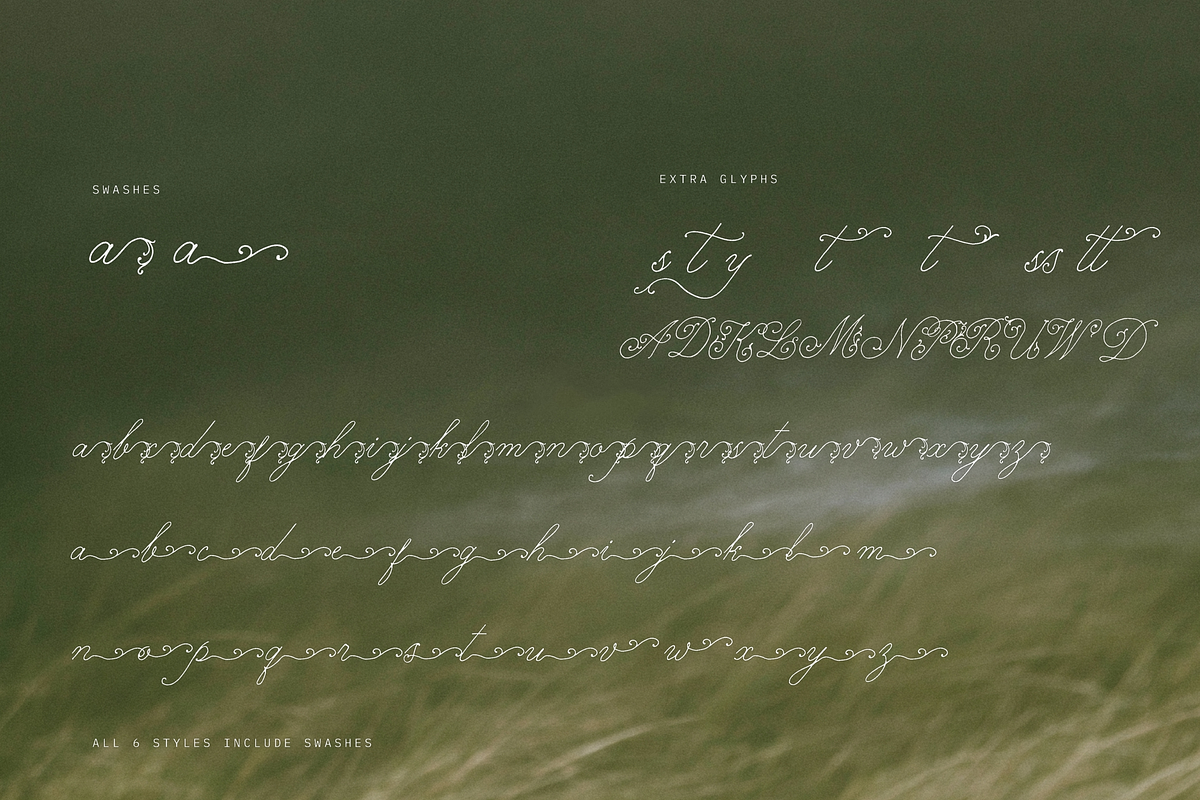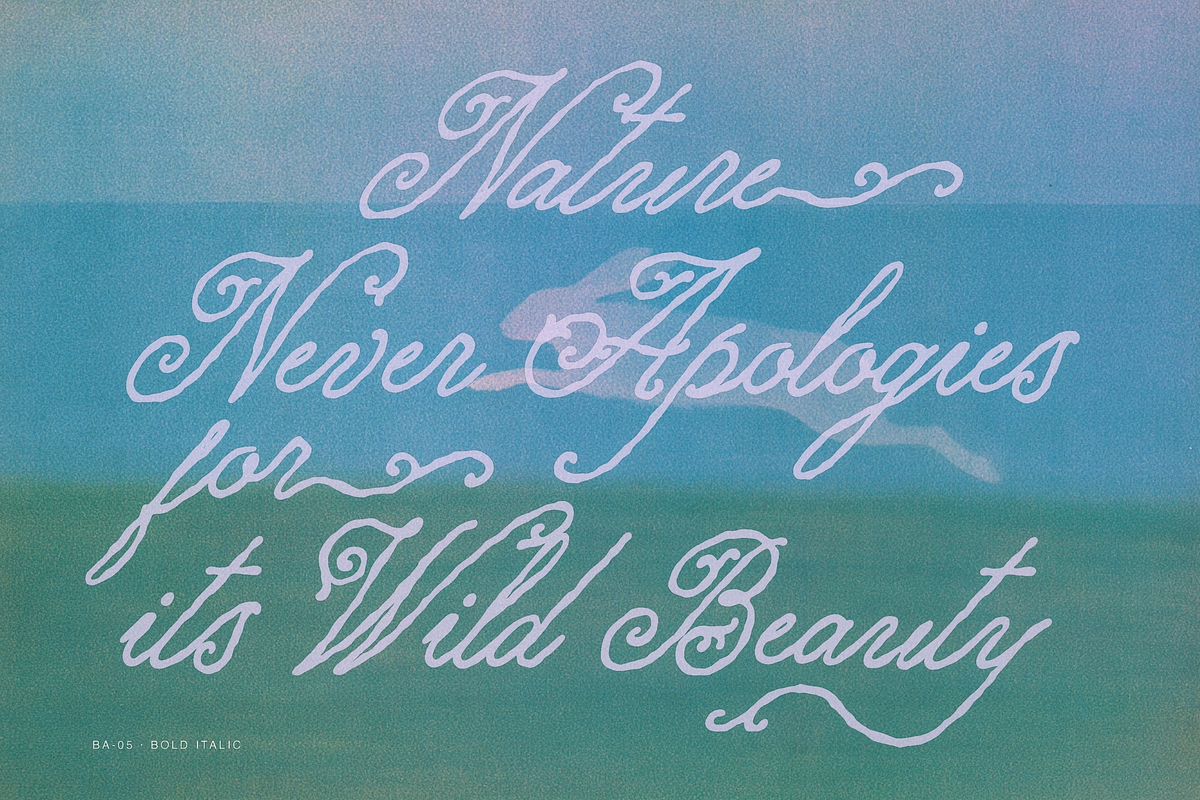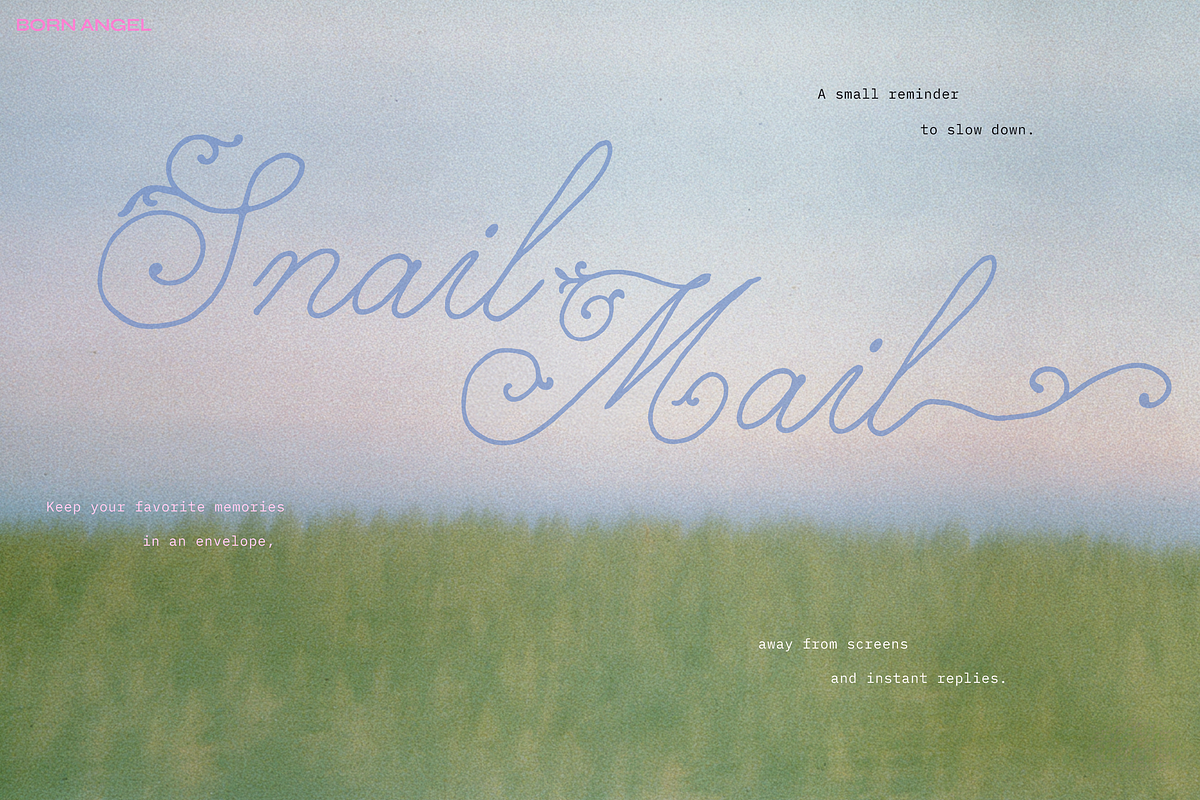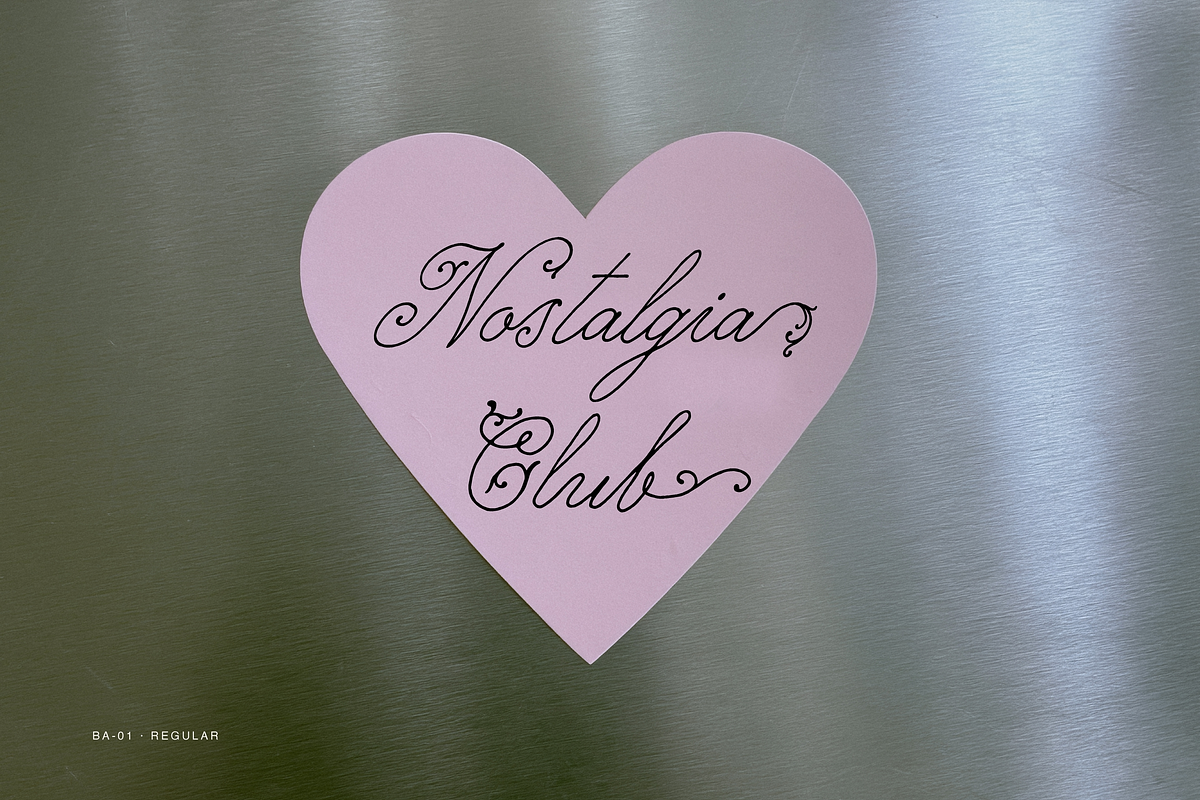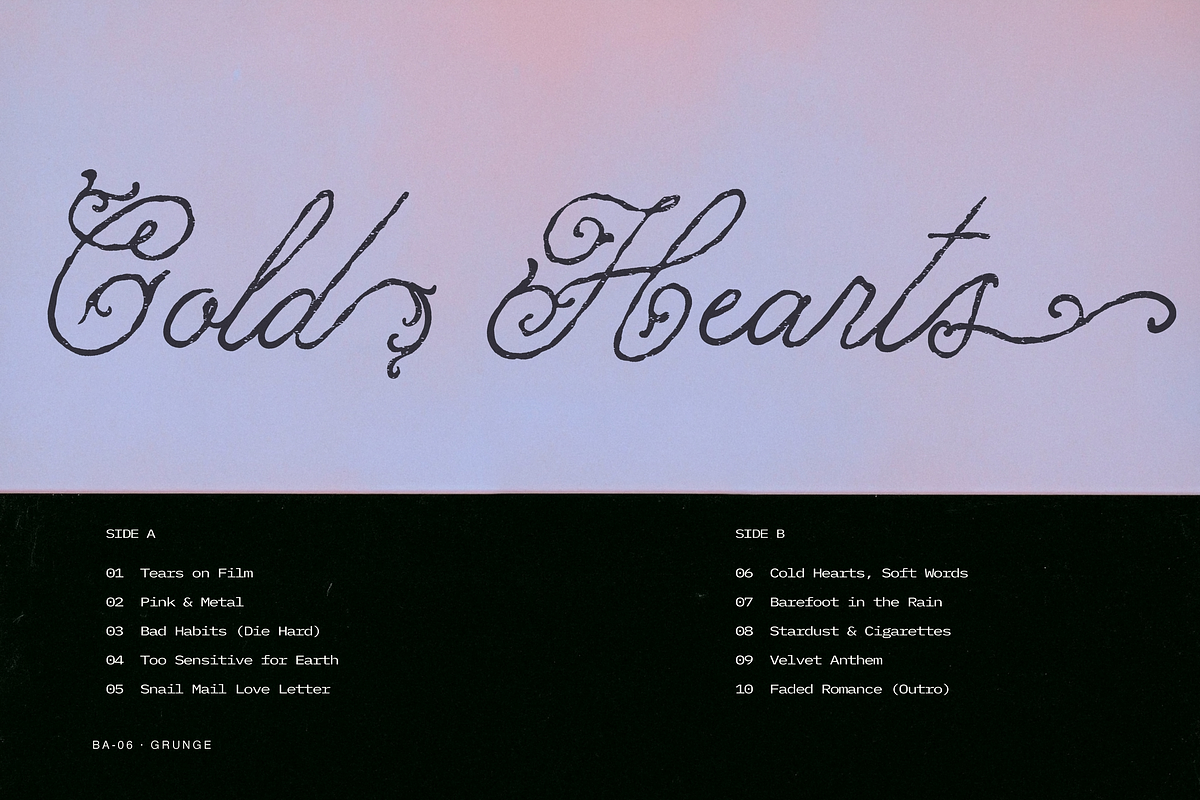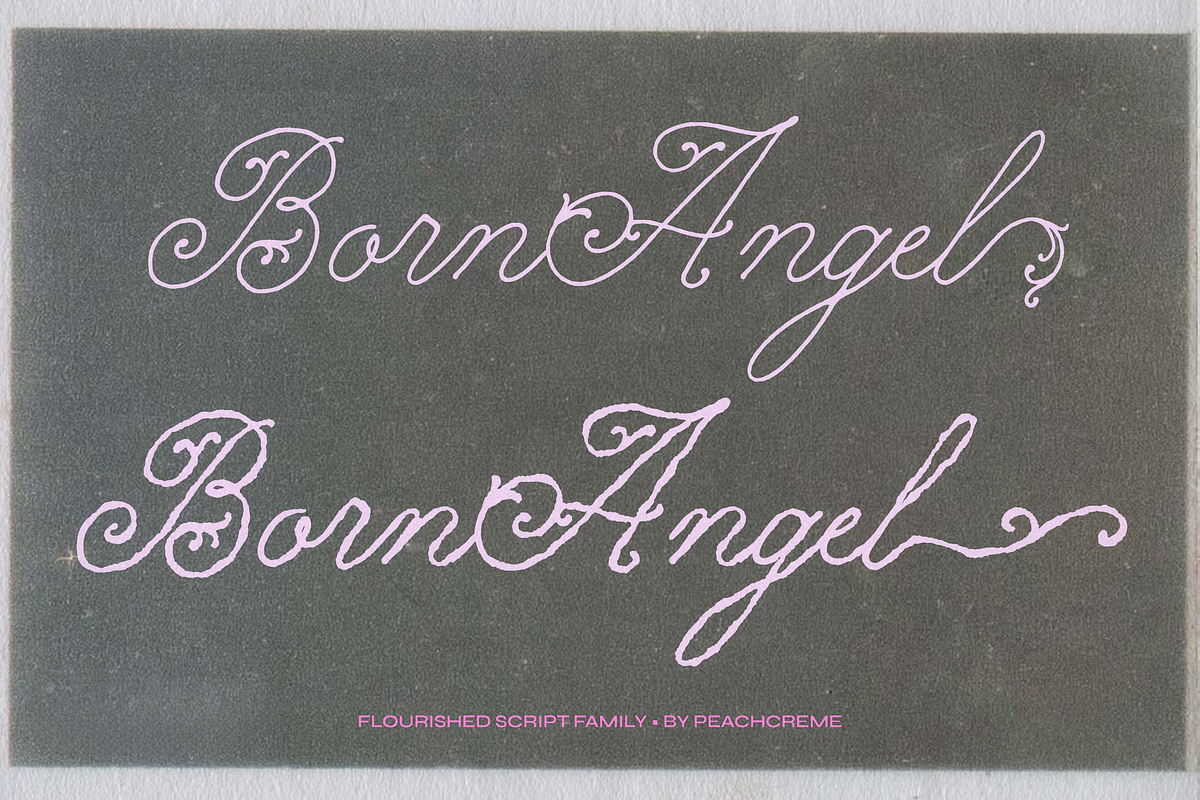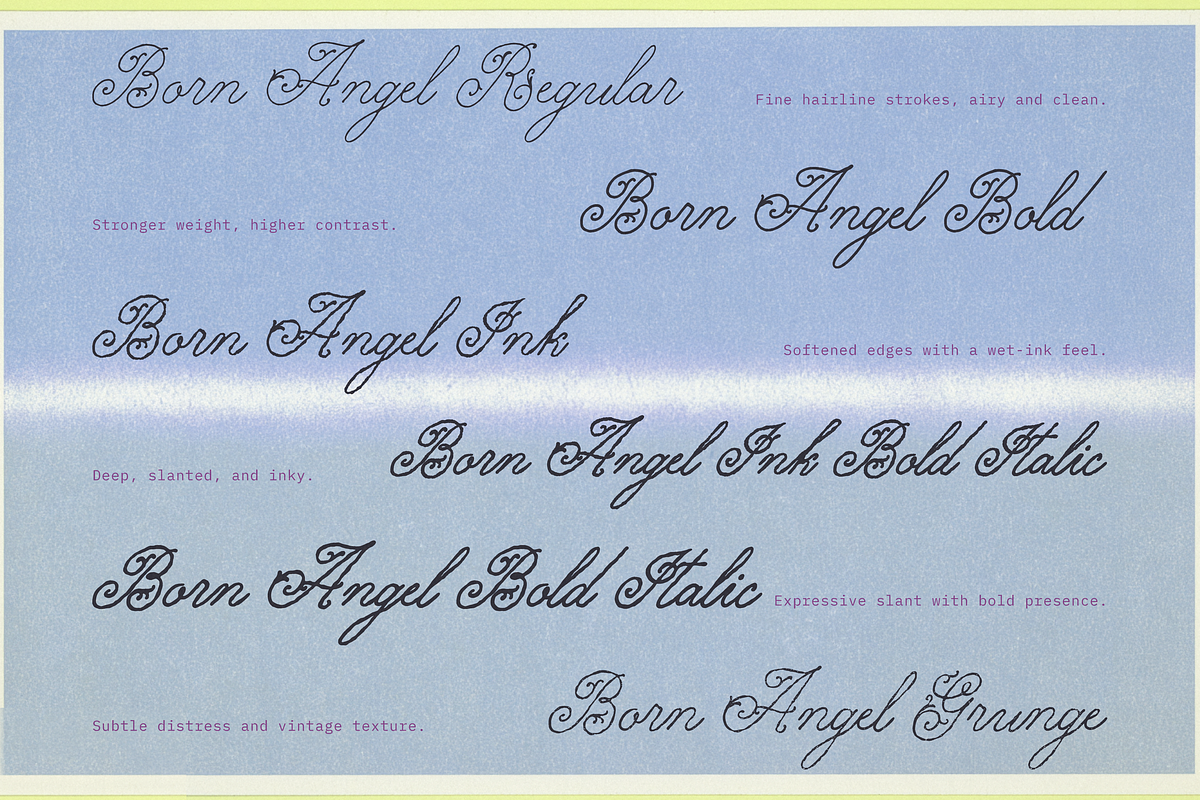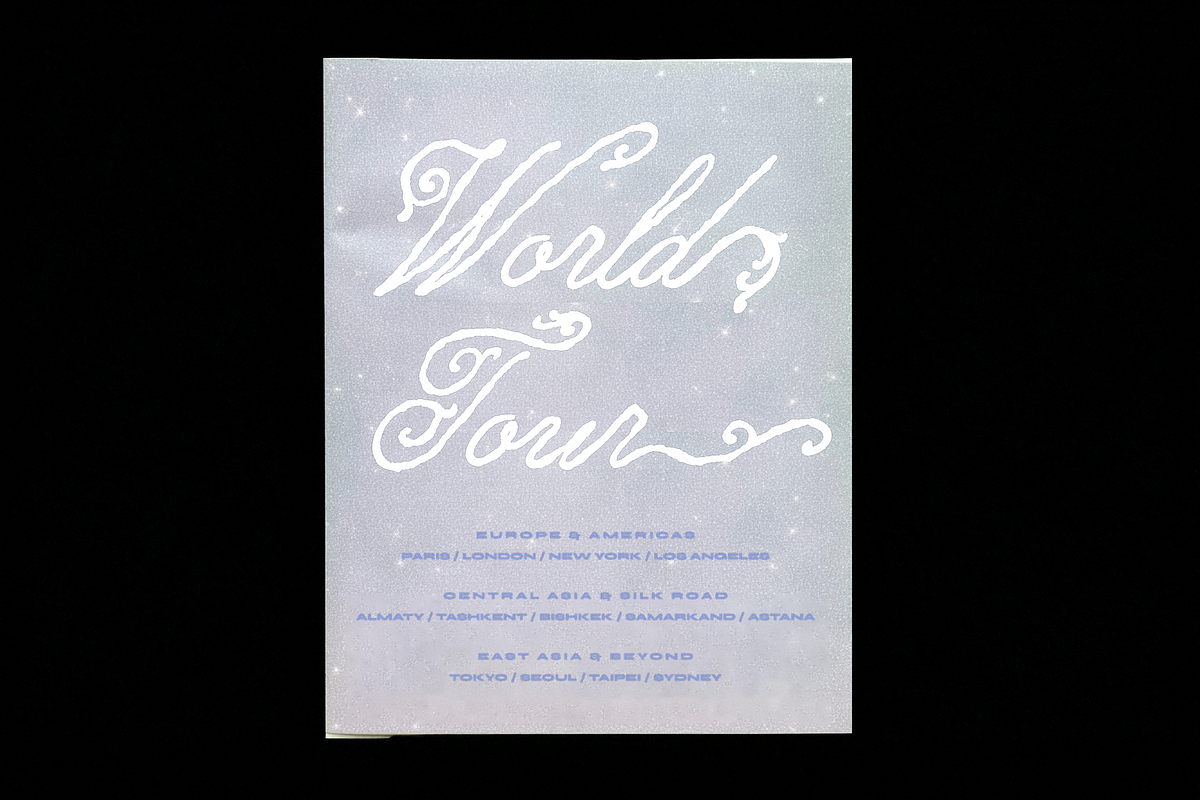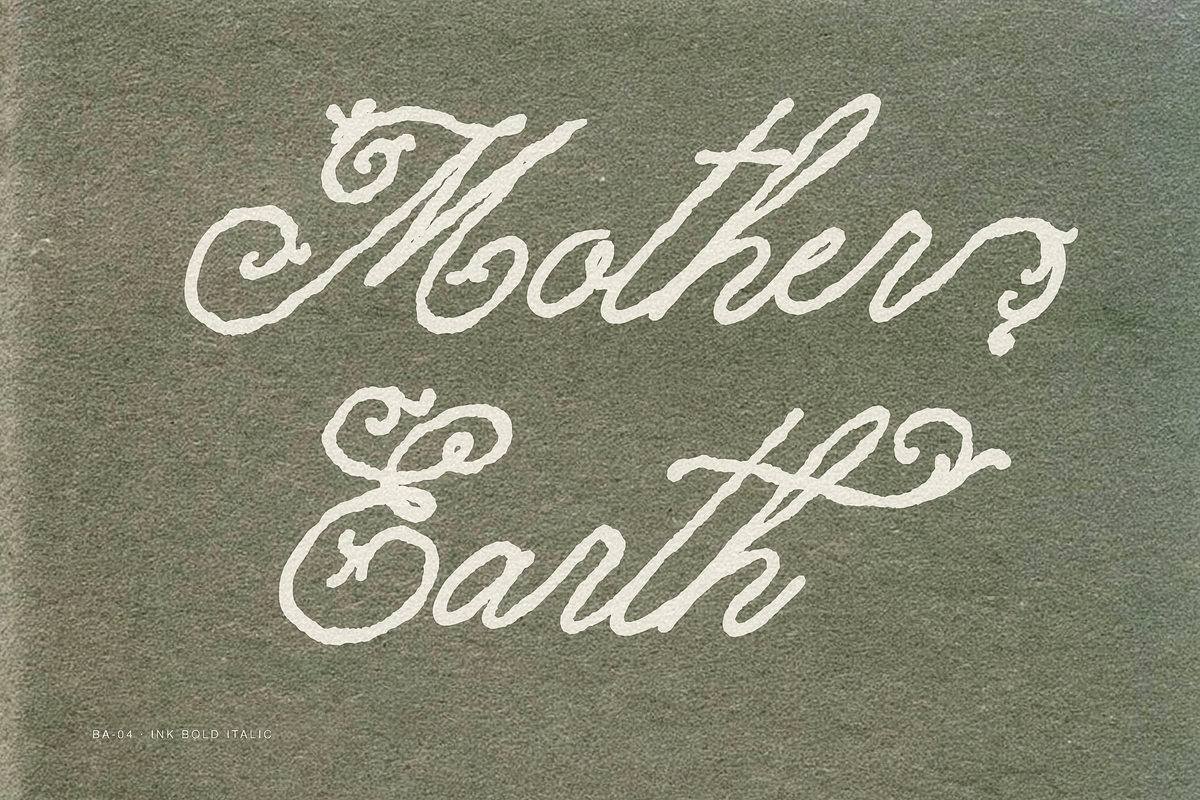
Born Angel // Font Family
Born Angel is a flourished script family rooted in Y2K nostalgia, blending a soft, romantic feel with a bit of subculture edge. I designed it around intricate botanical vine swashes, aiming for something that feels right at home on editorial covers, album art, nostalgic stationery, and vintage clothing tags.
It comes in 6 distinct styles (from a clean hairline cut to a weathered grunge version) so you can easily tweak the mood depending on your project.
Born Angel Regular — Fine hairline strokes, airy and clean.
Born Angel Bold — Stronger weight with pronounced visual contrast.
Born Angel Ink — Softened edges mimicking wet ink settling on textured paper.
Born Angel Ink Bold Italic — A rich, forward-leaning cut with maximum movement.
Born Angel Bold Italic — Sharp, expressive slants for high-energy editorial headers.
Born Angel Grunge — Weathered, distressed edges for vintage film and subculture texture.
Every lowercase letter includes two different swash styles so you can build custom combinations.